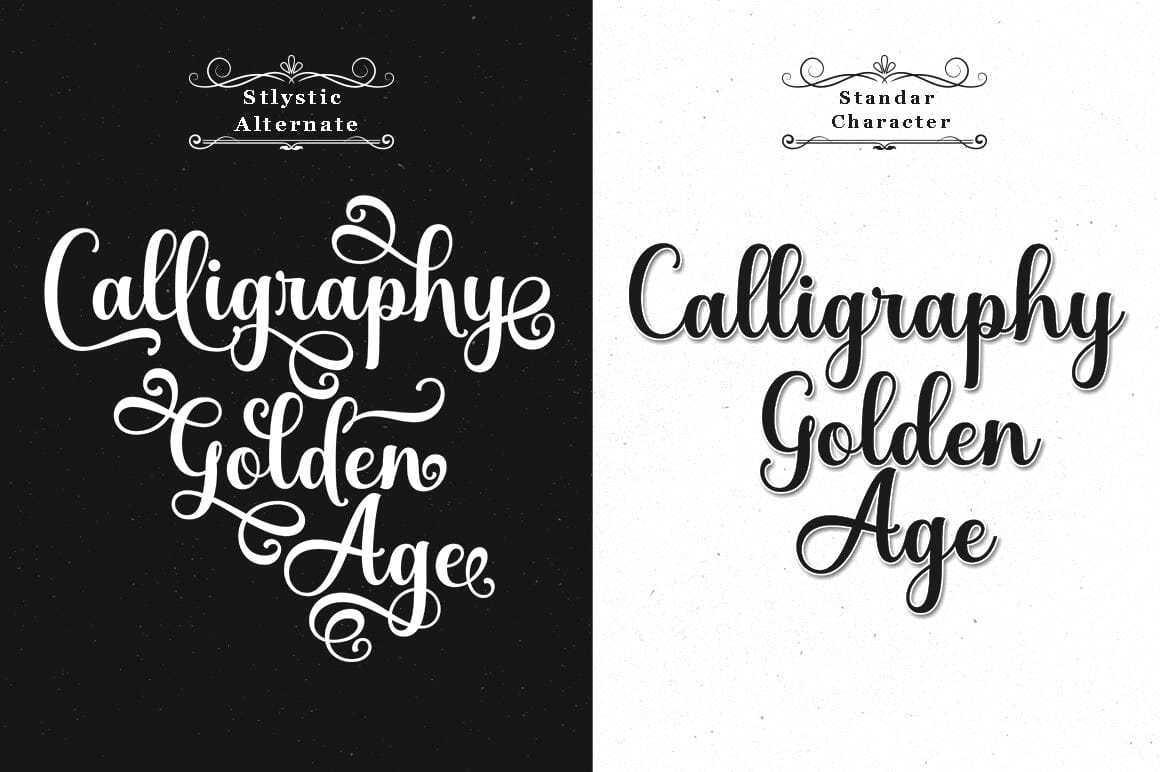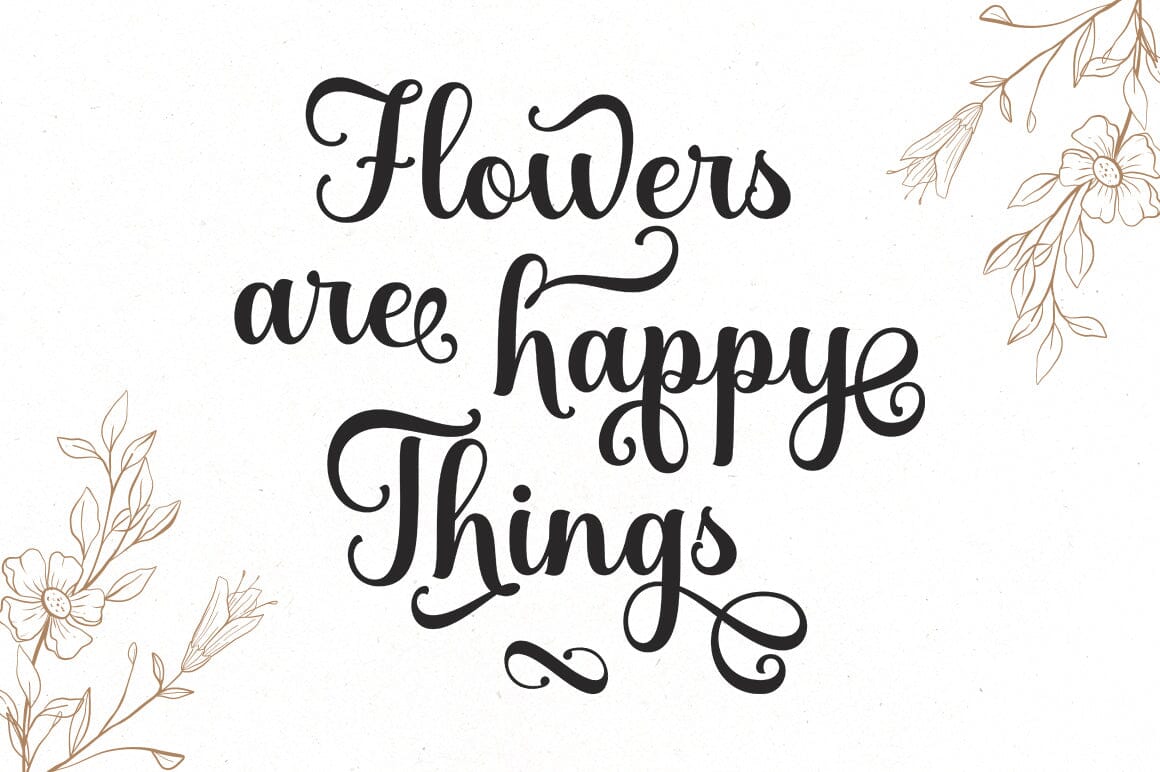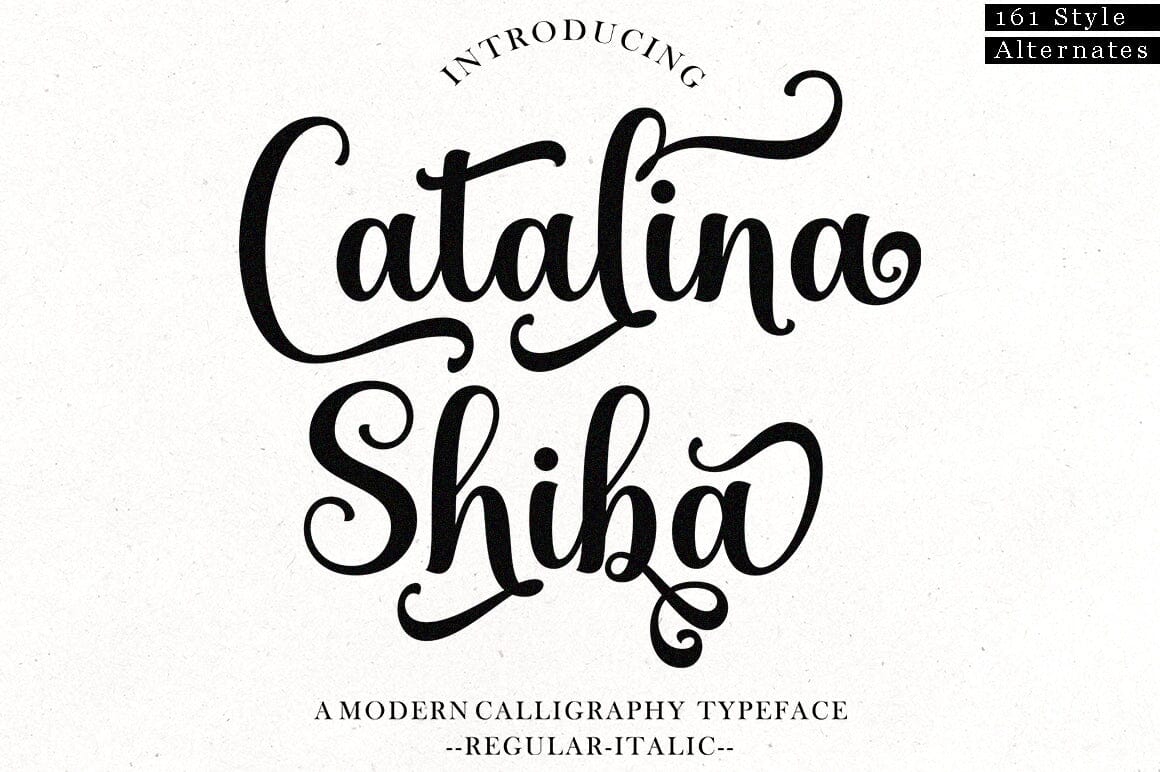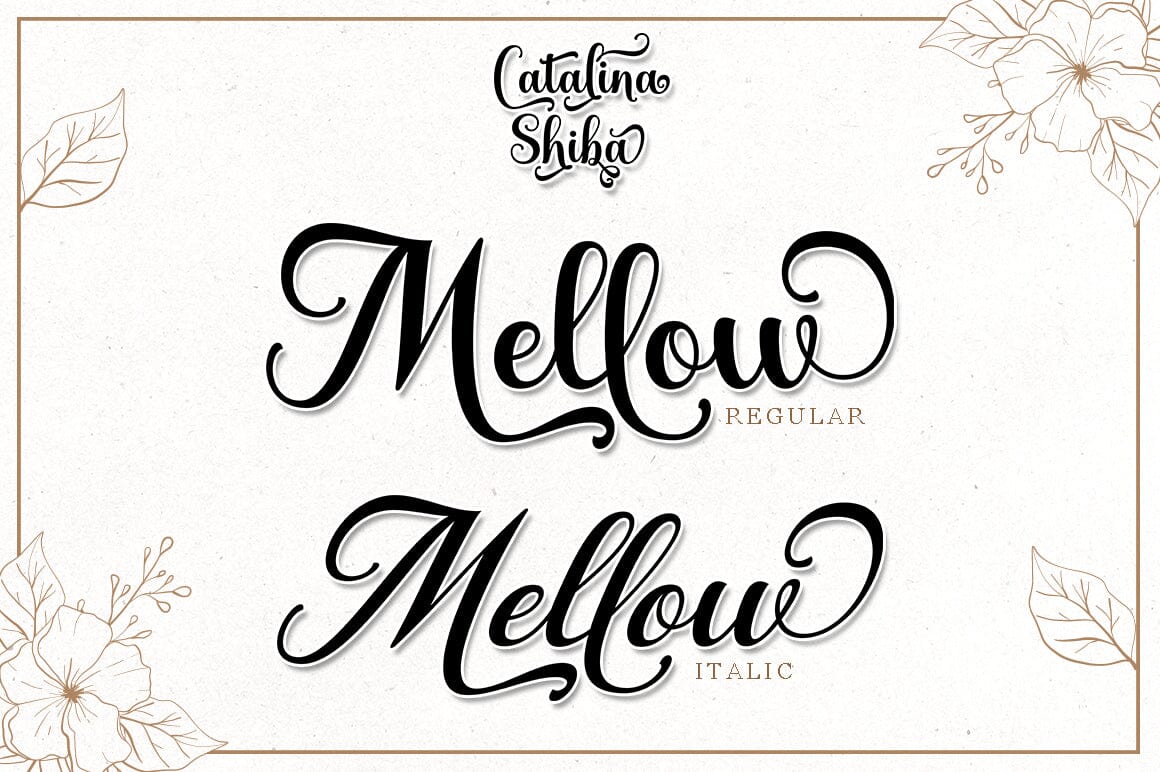
About Catalina Shiba
Catalina Shiba В is a calligraphic script font that comes with a lovely alternative character. mix of copper calligraphy in a handlettering style. Designed to convey an elegant style.В Catalina Shiba В is attractive because it is smooth, clean, feminine, sensual, glamorous, simple and very legible. Its classic style is very suitable to be applied to all types of formal items such as invitations, labels, menus, logos, fashion, make up, stationery, letterpresses, romantic novels, magazines, books, greeting / wedding cards, packaging, labels. В Catalina Shiba В features 347 + glyphs and 161 alternate characters. includes multiple language support. With OpenType features with stylistic alternates, ligatures and swash characters, which allow you to mix and match pairs of letters to suit your design, and also a touch of ornament makes this font look elegant. В Files include: В Catalina Shiba Regular (OTF, TTF) В Catalina Shiba Italic (OTF, TTF) В To activate the OpenType Stylistic alternative, you need a program that supports OpenType features such as Adobe Illustrator CS, Adobe Indesign & CorelDraw X6-X7, Microsoft Word 2010 or a later version. There are additional ways to access swashes, using Character Map (Windows), Nexus Fonts (Windows), Font Books (Mac) or a software program such as PopChar (for Windows and Mac).